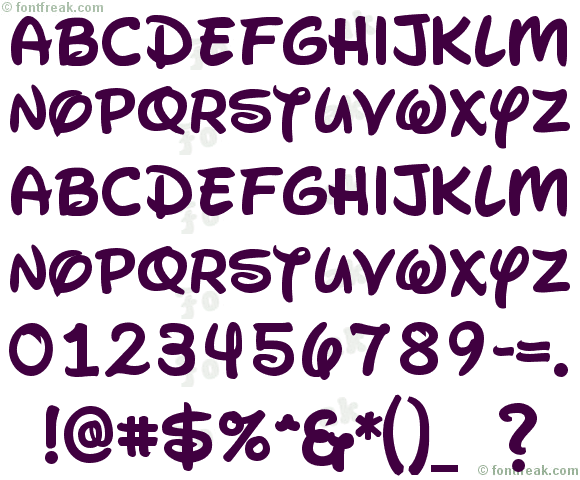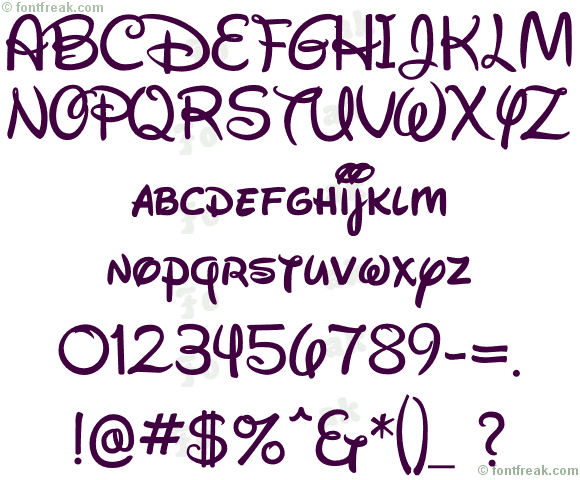
Waltograph UI Bold
Waltograph
Waltograph UI Bold is a distinctive display font that captures the playful essence of classic cartoon typography. Designed by Justin Callaghan, this font is characterized by its bold, rounded strokes that convey a sense of whimsy and nostalgia. The uneven stroke weight, combined with a slightly irregular baseline, gives it a hand-drawn appearance, making it both inviting and visually engaging. The spacing between letters is generous, enhancing readability while maintaining a casual flair.
This font is perfect for a variety of creative projects. It shines in applications such as children's book covers, where its playful nature can attract young readers. Additionally, it's an excellent choice for movie posters, particularly for animated films, as it evokes a sense of fun and adventure. Restaurant menus can benefit from its boldness, drawing attention to special dishes or promotions. Furthermore, Waltograph UI Bold is ideal for branding projects, especially for businesses that want to convey a friendly and approachable image.
What sets Waltograph UI Bold apart is its ability to blend nostalgia with modern design sensibilities. The playful nature of the font invites users to engage with the content while maintaining a professional look. For those seeking a charming and versatile typeface, the Waltograph UI Bold font free download is an excellent addition to any designer's toolkit, allowing for endless creative possibilities.